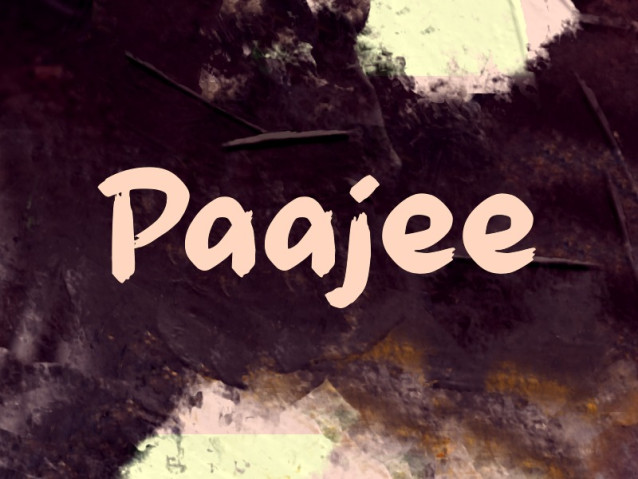
Paajee Font
Paajee Font This font is a hand-drawn brush style typeface with a bold, organic, and expressive character.Its rough edges and uneven strokes give it a natural, handmade feel, making it ideal for creative designs such as posters, album covers, branding, quotes, and artistic titles.
The font conveys energy and personality, working especially well in designs that aim for a casual, emotional, or artistic tone. It stands out best at larger sizes, where the texture and brush details can be fully appreciated.